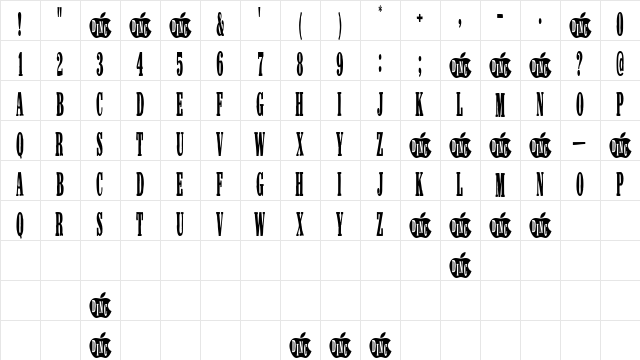
FreshFishSpecial Regular
Design Context for FreshFishSpecial Typeface
FreshFishSpecial takes a measured approach to typography — its balanced proportions and neutral character make it a reliable workhorse for both digital and print work.